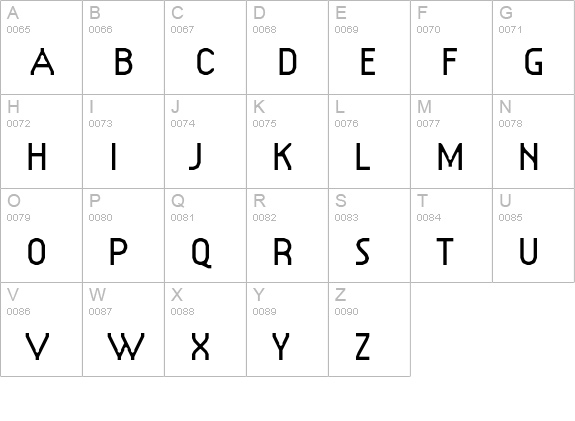
CitizenLight Font Details
CitizenLight font is a versatile and modern typeface that exudes elegance and sophistication. Its clean lines and sleek design make it perfect for a wide range of design projects, from branding to editorial materials. The light weight of the font adds a touch of delicacy and refinement, making it ideal for conveying a sense of modernity and style. What sets CitizenLight font apart is that it is not only visually appealing, but also free to use for both personal and commercial projects. This means that you can enhance your designs without breaking the bank. You can easily download CitizenLight font for free at FontsMarket.com, where it is readily available for you to incorporate into your next creative endeavor. Elevate your designs with CitizenLight font and make a lasting impression with its timeless appeal.